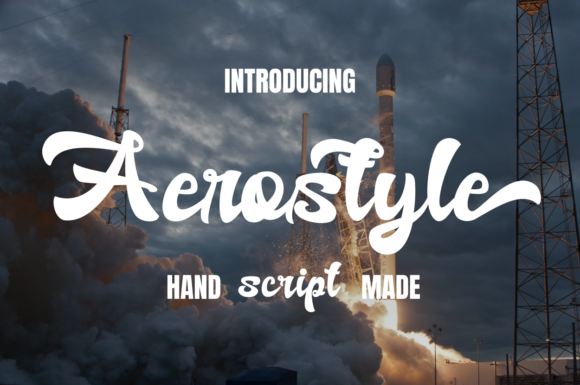
Aerostyle: A Premium Script Font for Editorial Design
The moment arrives in every publishing project where the mood must crystallize into a visual identity. For me, it happened while redesigning a seasonal lifestyle blog. The header felt static; the cover of the upcoming recipe ebook lacked warmth. I needed a touch of elegance, a human rhythm, something that whispered rather than shouted. That’s where I discovered Aerostyle.
Aerostyle as an Elegant and Flowing Handwritten Font
Upon first inspection, Aerostyle presents itself exactly as described: an elegant and flowing handwritten font. Its characters are beautifully formed, with a natural, organic stroke that avoids the overly casual or chaotic feel some script fonts can impart. The balance is its secret strength. Each letter sits comfortably with its neighbors, creating a cohesive word shape that feels intentional, not random. This inherent balance means Aerostyle can carry a sophisticated mood without sacrificing its handwritten charm. It’s the kind of script font that lends itself to editorial contexts where personality is paramount, but professionalism is still required.
Using Aerostyle for Creative Blog Headers and Publication Titles
In my layout test, I applied Aerostyle to the main blog header. The result was immediate. The flowing script transformed the site’s identity, introducing a relaxed, thoughtful, and refined atmosphere perfectly suited for a lifestyle publication. For a digital magazine or a newsletter header, Aerostyle functions similarly, establishing a strong, mood-driven brand identity from the outset. It excels as a display font for titles, chapter openers in ebooks, and feature names in editorial layouts. I also tested it on a recipe ebook title—the elegant characters added a personal, artisan touch that a sterile sans-serif could never achieve. This font matches a wide pool of designs, particularly those in the creative, lifestyle, wellness, and wedding niches.
How Aerostyle Supports Readability in Editorial Pull Quotes and Section Headings
Beyond master titles, Aerostyle finds a perfect home within the body of content. For pull quotes in a long-form article or a digital magazine, this script font draws the reader’s eye gracefully, emphasizing key thoughts without disrupting the reading flow. In a coaching workbook or a printable planner, using Aerostyle for section headings creates a gentle visual hierarchy. It signals a new topic or reflection point with a softer authority than a bold, blocky font. The readability here is for impact and mood, not for dense paragraph reading. Its beautiful and well-balanced characters ensure that even at moderate sizes, these accents remain legible and contribute positively to the overall content structure.
Pairing Aerostyle with Serif and Sans Serif Fonts for Content Layouts
A critical step in any editorial design is font pairing. A standalone display font like Aerostyle needs a reliable partner for body copy. For the blog redesign, I paired it with a classic serif font for the article text. This combination is timeless: the expressive, handwritten style of Aerostyle for headlines and accents, complemented by the steadfast readability of a serif for long passages. For a more modern feel, such as in a course PDF or a newsletter graphic, a clean, geometric sans-serif works beautifully as the body font. This pairing strategy ensures your creative ideas remain grounded in practical readability. Aerostyle’s versatility means it can anchor the identity, while your chosen serif or sans-serif handles the heavy lifting of content delivery.
Editorial Uses Where Aerostyle May Not Be Suitable
Understanding a font’s limits is as important as celebrating its strengths. Aerostyle is, unequivocally, a display script font. It should not be used for body copy, small captions, dense paragraphs, or formal report text. Its expressive nature and flowing style are designed for attention and mood-setting at larger sizes. In mobile layouts, ensure its use is reserved for key graphical elements that scale well. For PDF exports and print materials like wedding guides or printable planners, it will perform excellently as a design asset, but always confirm legibility at your chosen output size. This focus makes it a powerful, specialized tool in your typography toolkit.
Integrating Aerostyle into Your Brand Identity and Digital Products
For bloggers, publishers, and digital product creators, a font is more than decoration; it’s a brand asset. Aerostyle offers a distinct personality that can become synonymous with your publication’s voice. Imagine it gracing the cover of your next wedding guide, the chapter titles of your recipe ebook, or the header graphic of your creator newsletter. Its elegant flow sets a consistent, engaging mood across all touchpoints. Before committing, a practical review is wise: check the included font styles, alternates, ligatures, and multilingual support to ensure it meets your project’s needs. Verify the commercial font licensing for use in ebooks, templates, paid newsletters, client publications, or digital downloads. Once cleared, adding Aerostyle to your most creative ideas can noticeably elevate them.
The true test of a typeface is not in isolation, but in application. In the calm aftermath of my layout project, with the new blog header live and the ebook cover finalized, Aerostyle proved its value. It provided the elegant, human touch I sought without compromising the design’s integrity. It supported visual hierarchy, strengthened publication identity, and engaged the audience with its refined personality. For any editorial designer seeking a script handwritten font that balances beauty with versatility, Aerostyle is a compelling choice worth exploring.